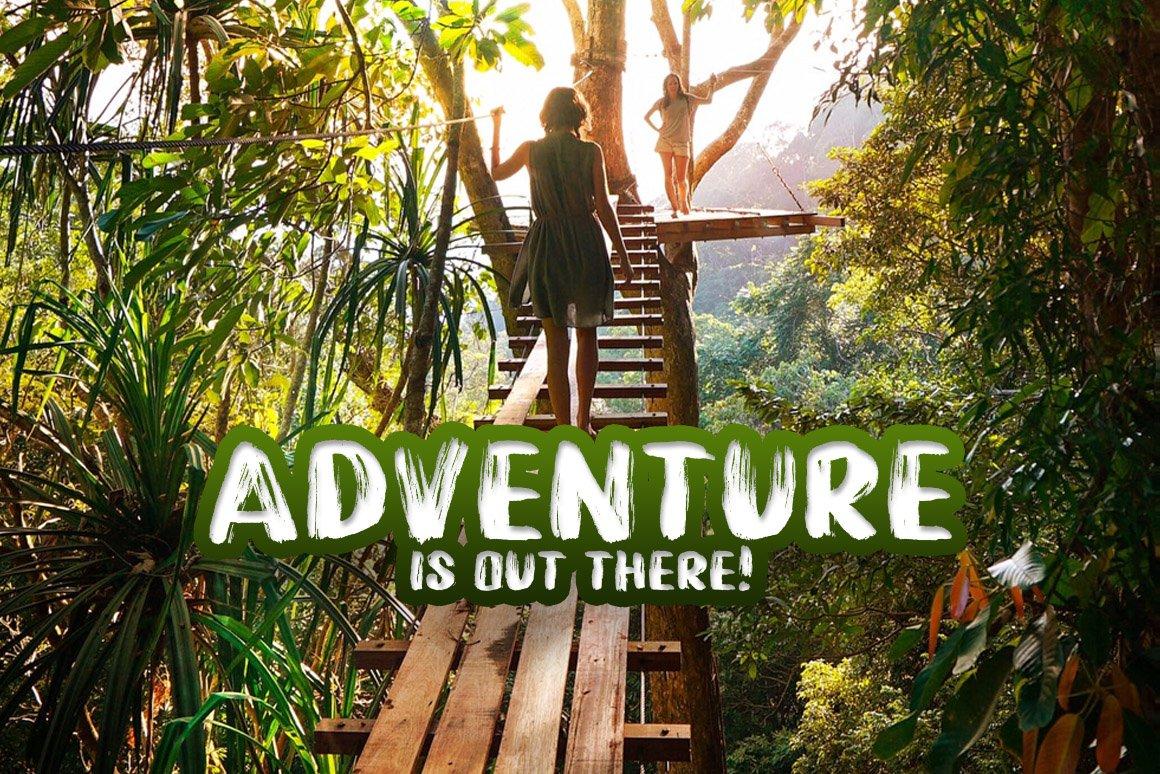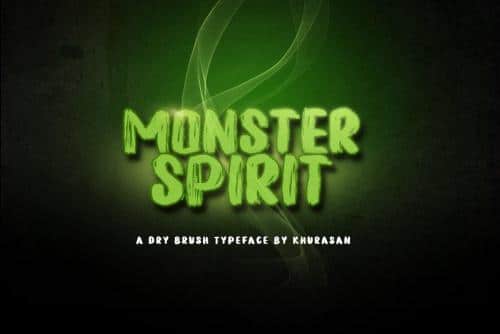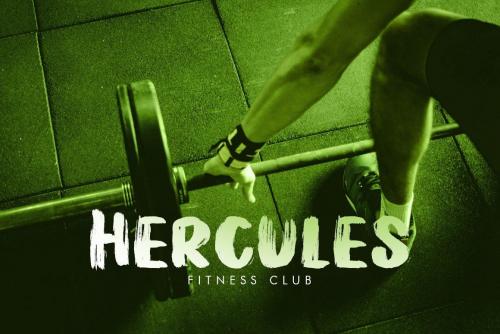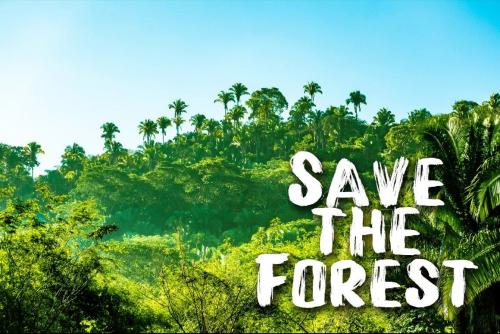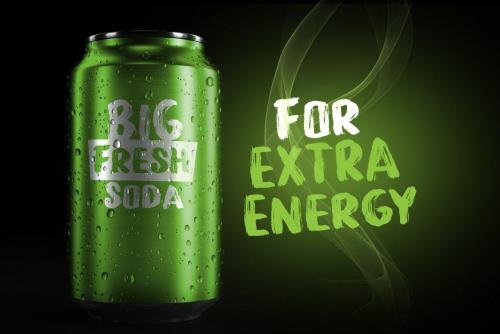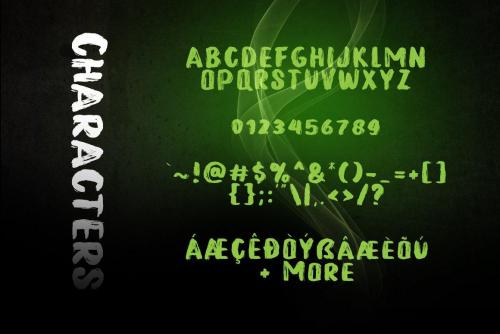
The Monster Spirit is a fresh handwritten dry brush font, elegant and vintage feel character set. The Monster Spirit font as well as multi-lingual support, numerals, & punctuation.
Monster Spirit Font suitable for logo, branding, greeting card, poster and any design that you create.